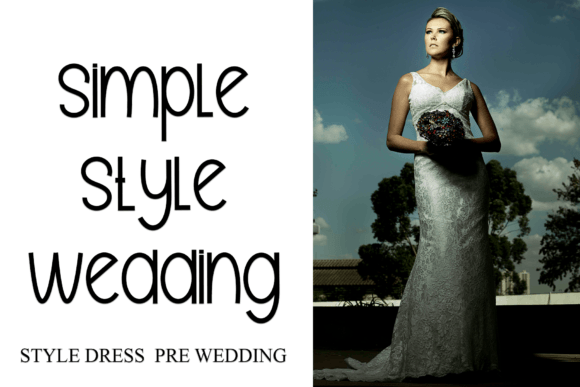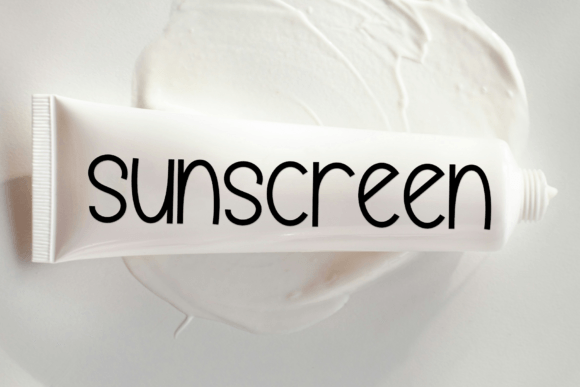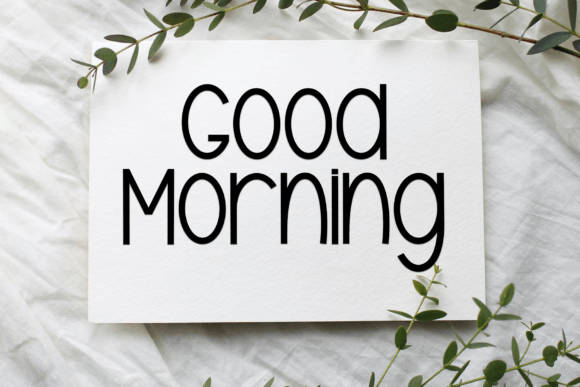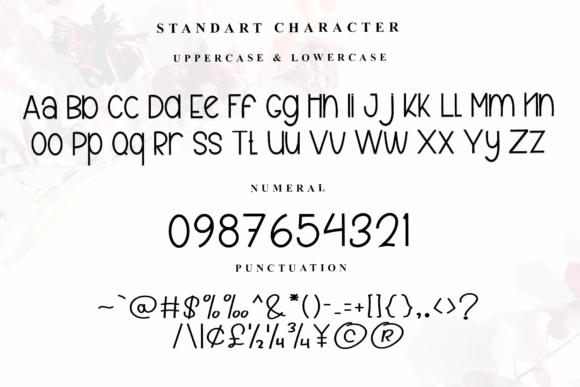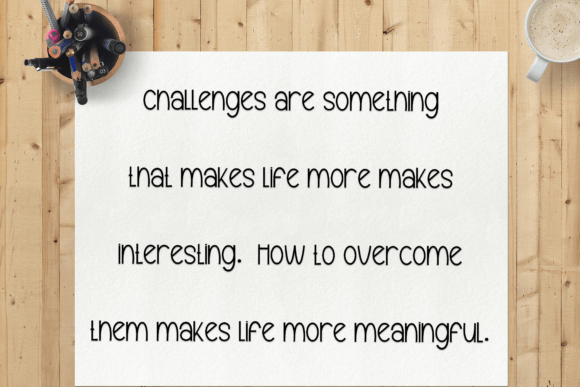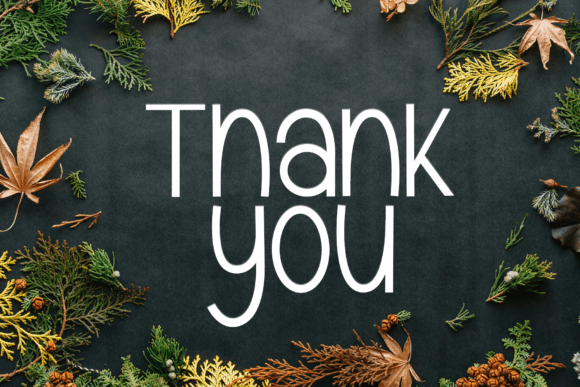
It’s that time of the year again – the season of joy, love, and festive cheer! As designers, we’re always on the lookout for the perfect font to capture the essence of the holiday season. And what better way to spread holiday cheer than with a font that embodies the warmth and magic of the season? For me, it’s always about finding that one font that adds a touch of whimsy to my designs, and this year, I’m excited to share with you my latest discovery – Hello Angela Font.
With its playful, decorative elements and unique flair, Hello Angela Font is the perfect addition to any holiday-themed project. Whether you’re designing greeting cards, gift labels, or social media graphics, this font brings a cheerful and nostalgic atmosphere to your words. And with its PUA coding, accessing all the amazing glyphs and ligatures is a breeze – making it a valuable tool for designers looking to add a personal touch to their work.
Hello Angela Font Key Features
- Font Family: Hello Angela Font is a sans-serif font family designed for digital use.
- Resolution: Optimized for screen use at resolutions up to 300 DPI.
- Unique Characteristics: Features a clean, modern design with a unique blend of geometric and organic shapes, making it suitable for various design applications, including digital interfaces, branding, and advertising.
- Font Size: Available in a range of font sizes, from 8 to 72 points, with multiple weight options (Thin, Light, Regular, Medium, Bold, and Black).
Hello Angela Font Review
I recently had the chance to work with the Hello Angela Font, and overall, I’m quite pleased with its performance. ✨ Here are a few things that stand out:
- Unique aesthetic: The font has a distinctive, playful feel that’s perfect for creative projects.
- High-quality rendering: The font renders smoothly across a range of devices and screen sizes.
- Good legibility: The font is easy to read, even at smaller sizes.
- Limited character set: The font doesn’t support as many languages as some other fonts.
- No italics or bold variants: While the font is great for headings, it may not be suitable for body text that requires emphasis.
- Not ideal for technical writing: The font’s aesthetic may not be the best fit for complex, technical content.
Overall, I think the Hello Angela Font is a great choice for projects that need a touch of personality and whimsy. While it may not be the best fit for every situation, it’s definitely worth considering for the right project.
Use “Hello Angela Font” for:
- Designing social media graphics and posts.
- Creating invitations and event materials.
- Adding a touch of elegance to your presentations and reports.
For optimal results, use “Hello Angela Font” in conjunction with a clean and minimalist design aesthetic.
Creative Projects Using Hello Angela Font
Project 1: Whimsical Tea Party Invitations
This project features a custom-designed invitation for a whimsical tea party using the Hello Angela Font.